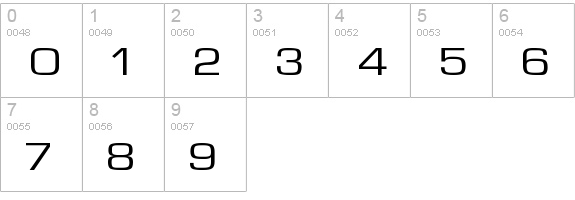
Waukegan LDO Extended is a distinctive, extended-width variant in the Waukegan typeface family \xE2\x80\x94 well suited to design and typography projects.
The Waukegan LDO Extended font is a stunning typeface that effortlessly combines elegance with modernity. With its elongated and sleek letterforms, this font is perfect for adding a touch of sophistication to any design project. Designed with meticulous attention to detail, Waukegan LDO Extended offers a wide range of characters, making it suitable for various applications. From logos and branding to headlines and promotional materials, this font adds a sense of professionalism and refinement. One of the most impressive features of Waukegan LDO Extended is its versatility. Whether used in print or digital media, this font maintains its clarity and legibility, ensuring that your message is effortlessly communicated to your audience. And the best part? Waukegan LDO Extended is available for free! That's right, you can now download this exceptional font at FontsMarket.com without spending a dime. With its high-quality design and generous offer, Waukegan LDO Extended is a must-have addition to any designer's toolbox. So why wait? Enhance your design projects with the beauty and versatility of Waukegan LDO Extended. Download it for free today at FontsMarket.com and experience the difference it can make in your designs.